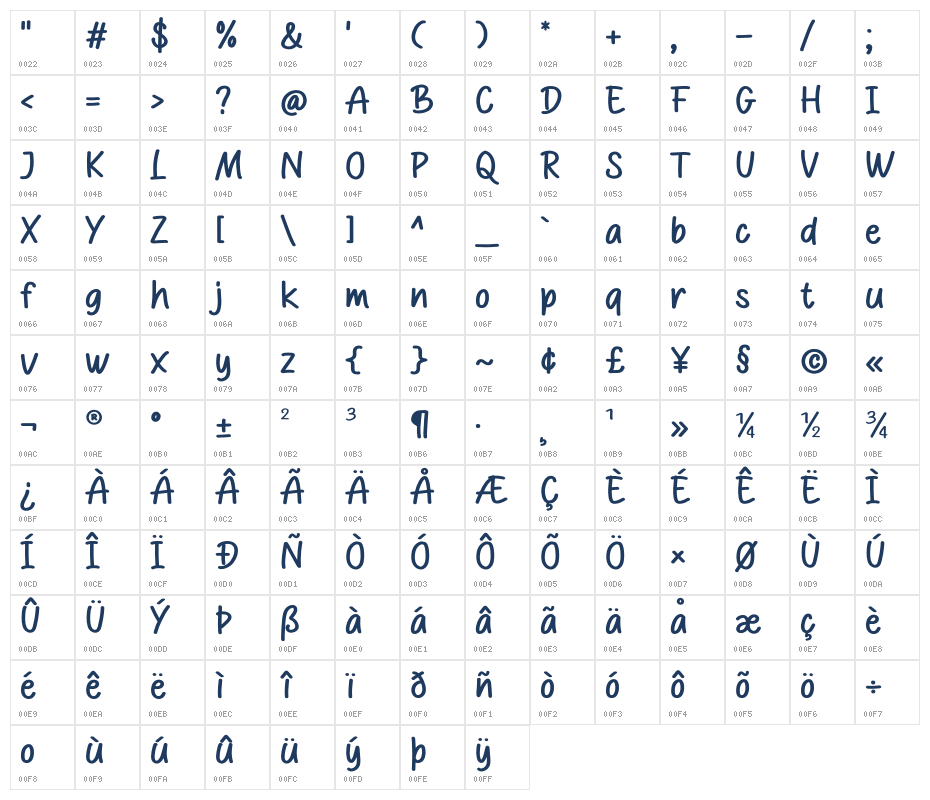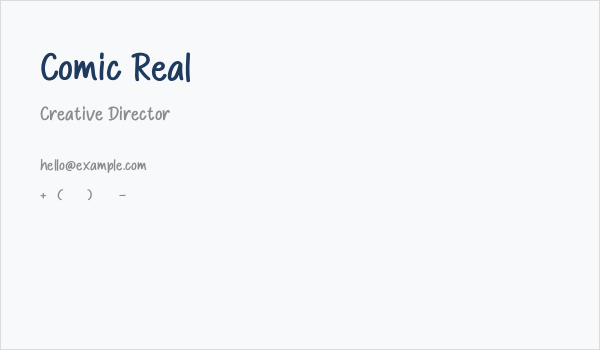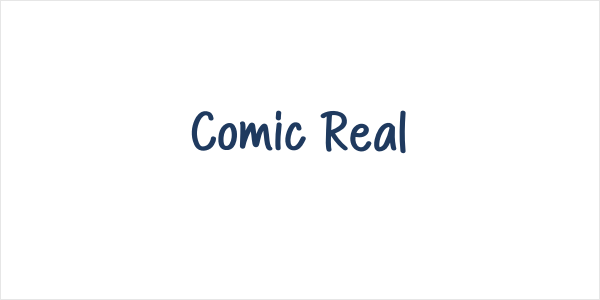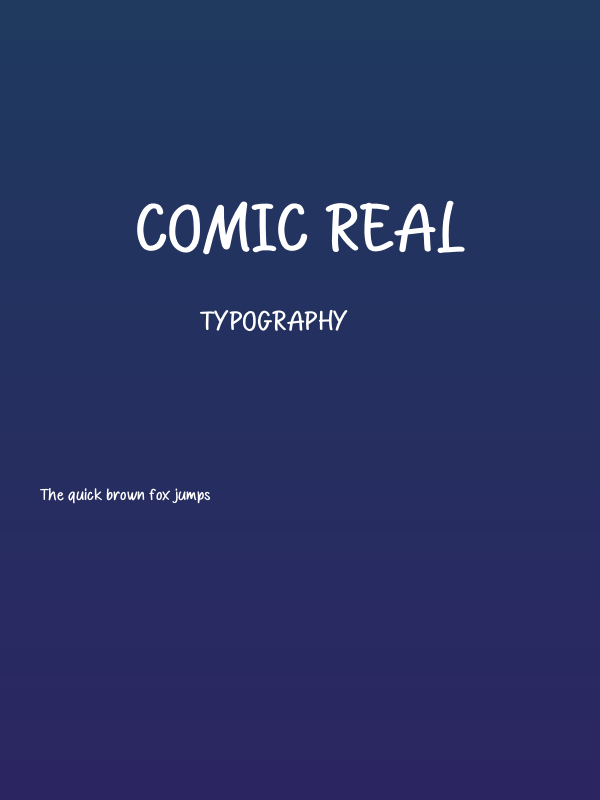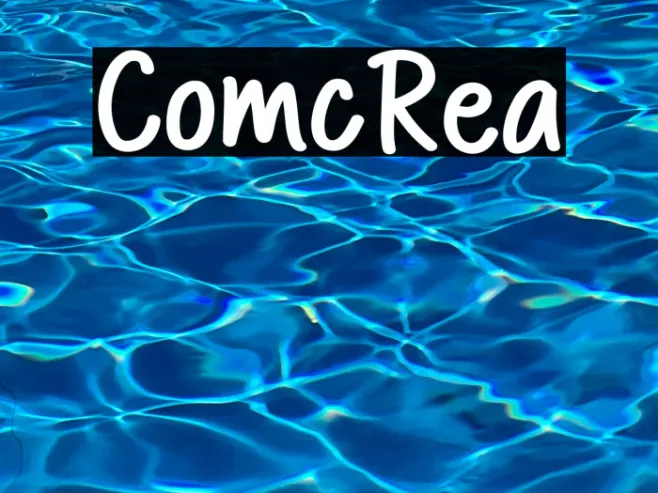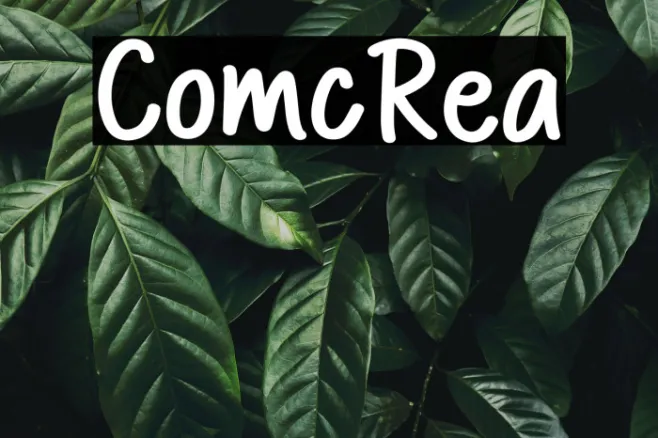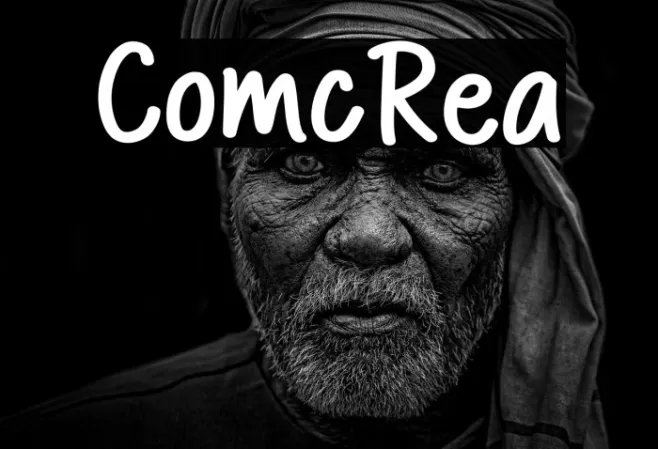
Comic Real Font
Comic Real Description
A casual, handwritten style font with rounded, playful characters.
| Overall Style | Casual, Playful, Handwritten |
| Use Case | Children's books, casual branding, invitations, informal signage. |